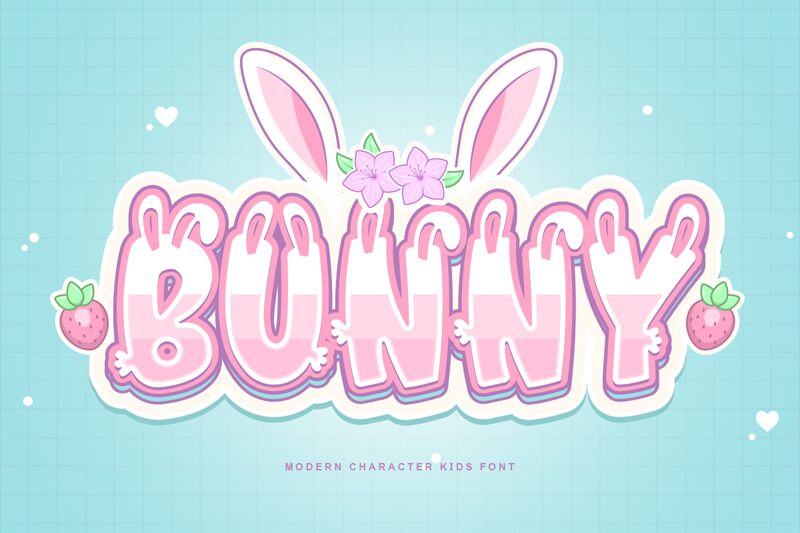
Bunny font is an easter-themed creation from Kong Font that holds a jovial presence. The bold weight and condensed width make it appear densified, thus creating an instant impact on readers. From its cute illustrative accents to the slightly playful tone, this cheerful font perfectly suits contemporary uses in children's media or casual branding.
Feel free to entirely customize your Easter egg patterns or gift wraps with this cool Bunny font. It also works excellently for reading books, magazines, special event cards, sticker designs for kids, label designs, home decor products including pillowcases and mugs as well as many more items!